Type releases
Two things caught my eye over at Future Fonts:
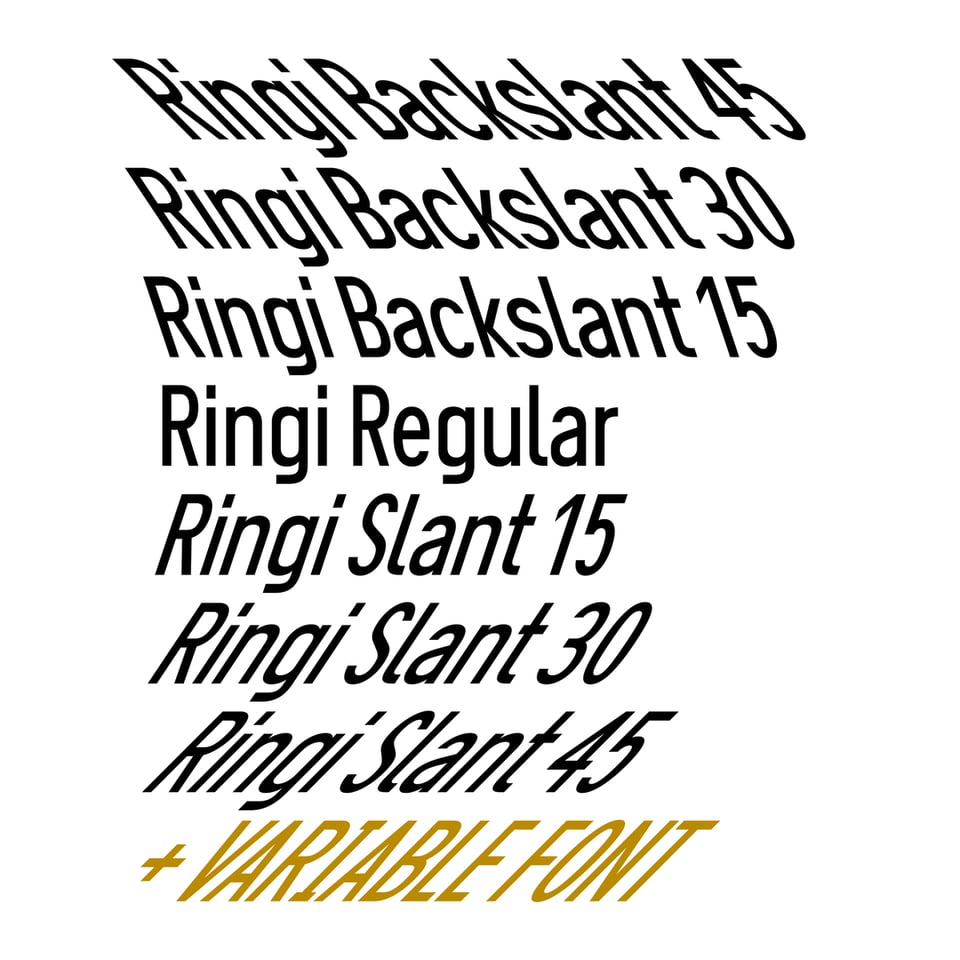
Inga Plonnings’s Ringi plays really well with a variable concept I’ve tinkered with, so I know how difficult it is. I can see this popping up in poster and motion work all this year.
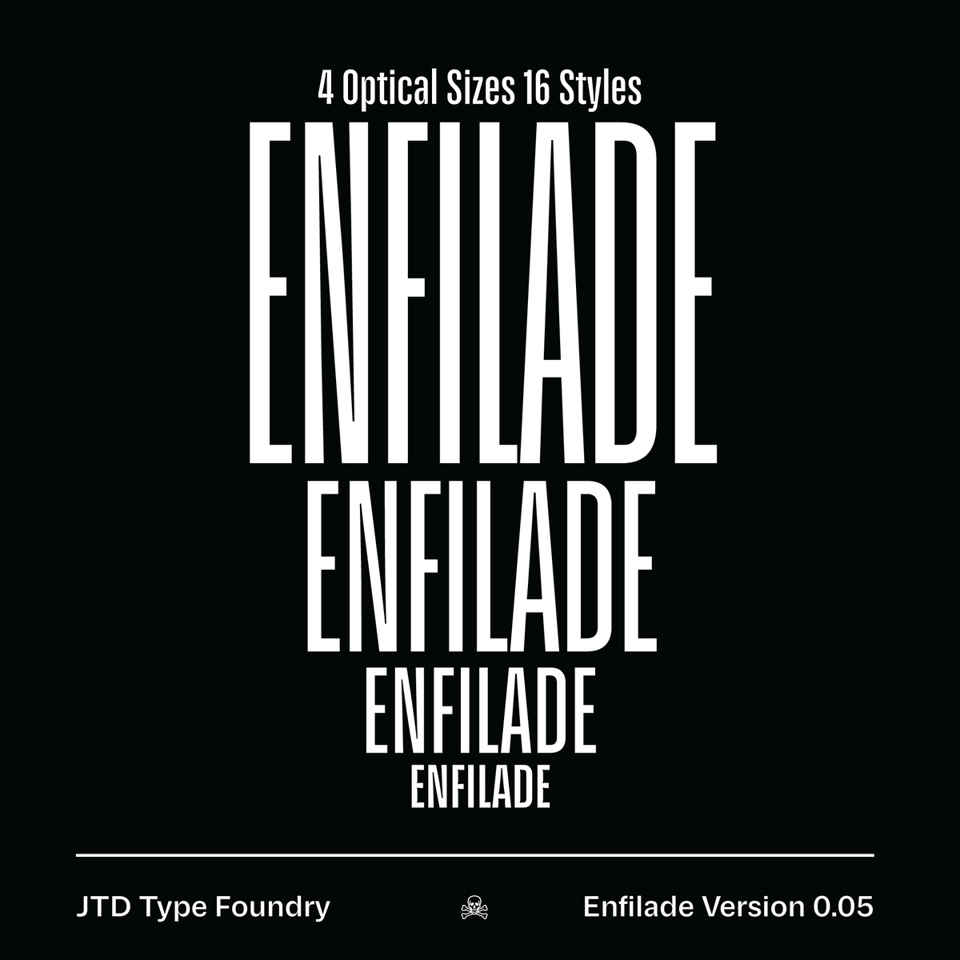
James Hultquist-Todd has been making really high-quality work for a long time, and his Enfilade is no exception. The latest release has the family very close to completion, so if you are looking for a typeface family that is an editorial/poster weapon, now is the time to get on board!